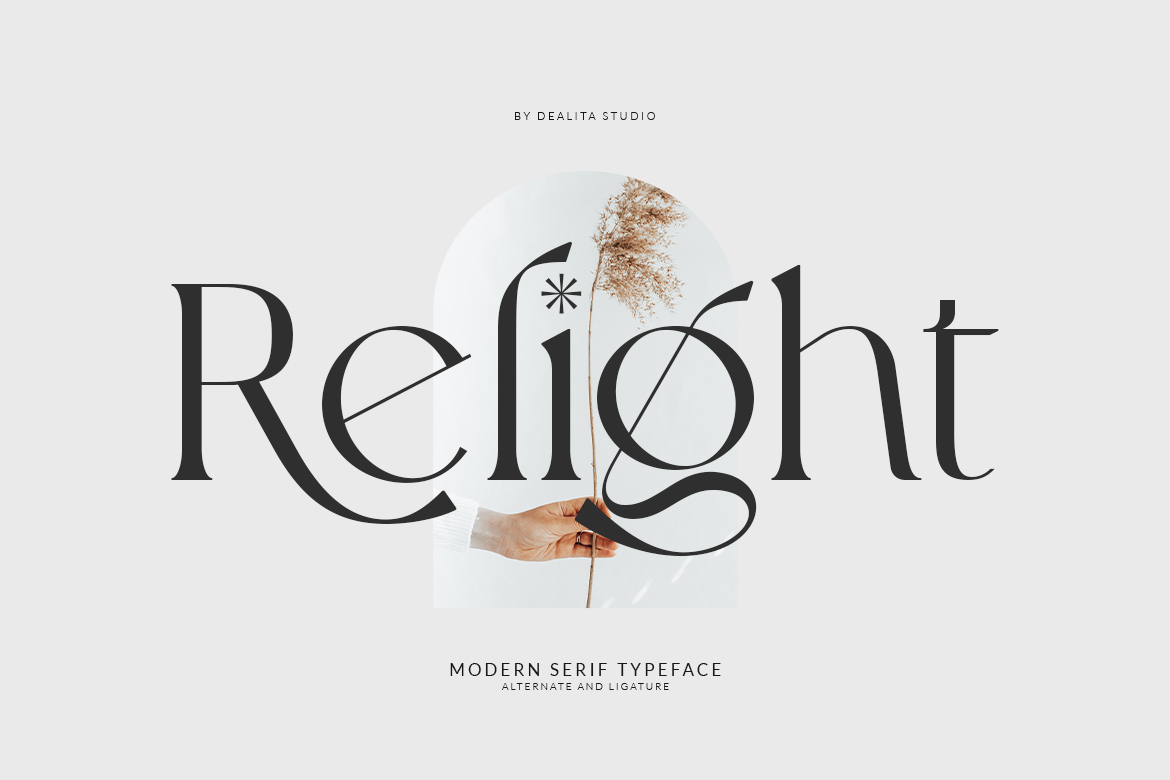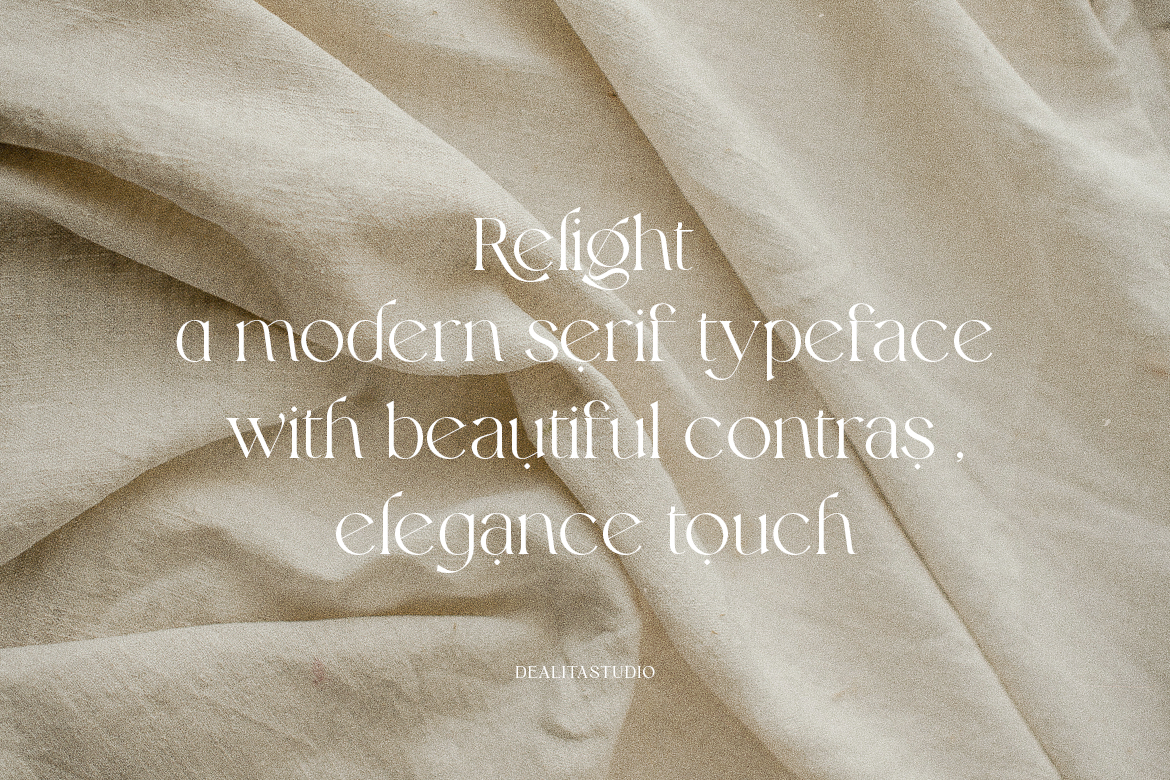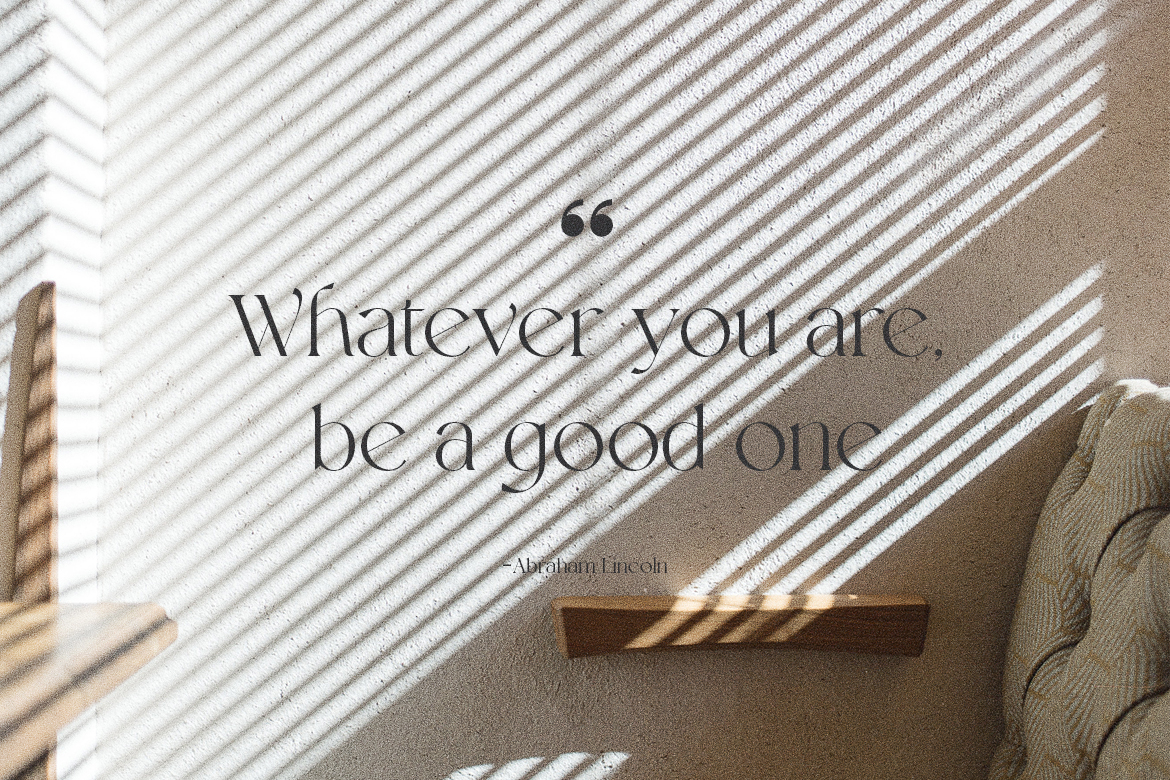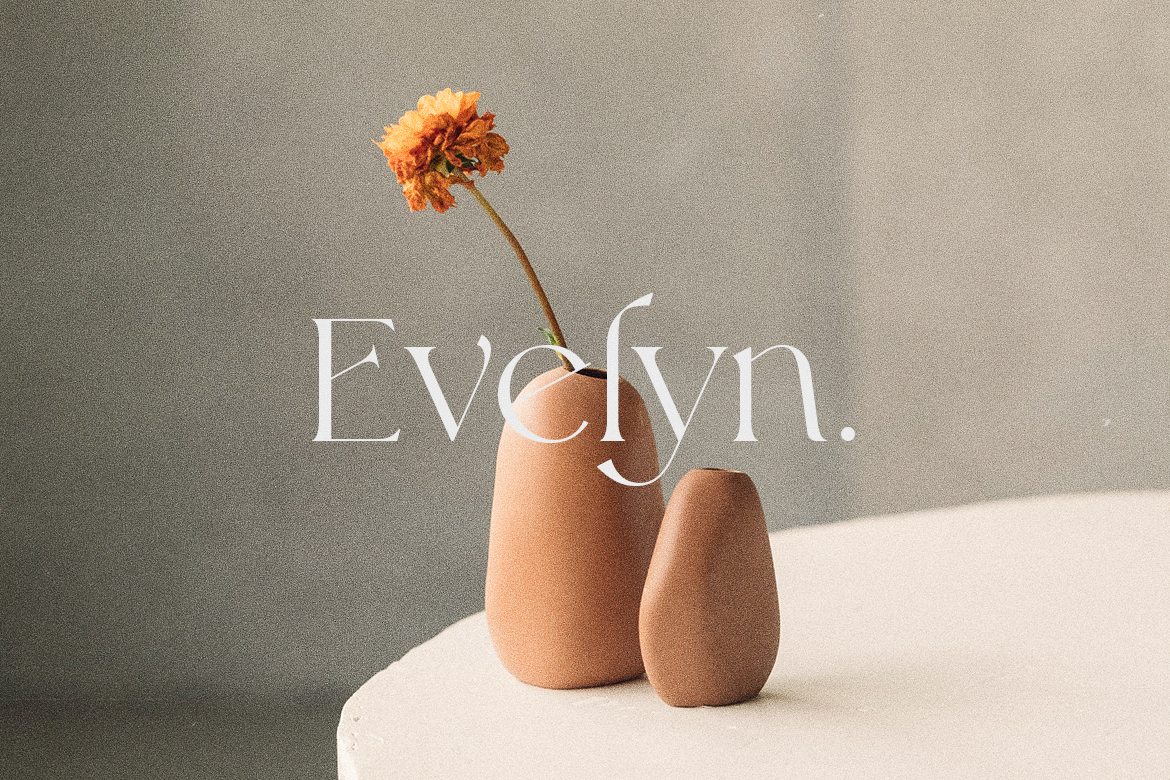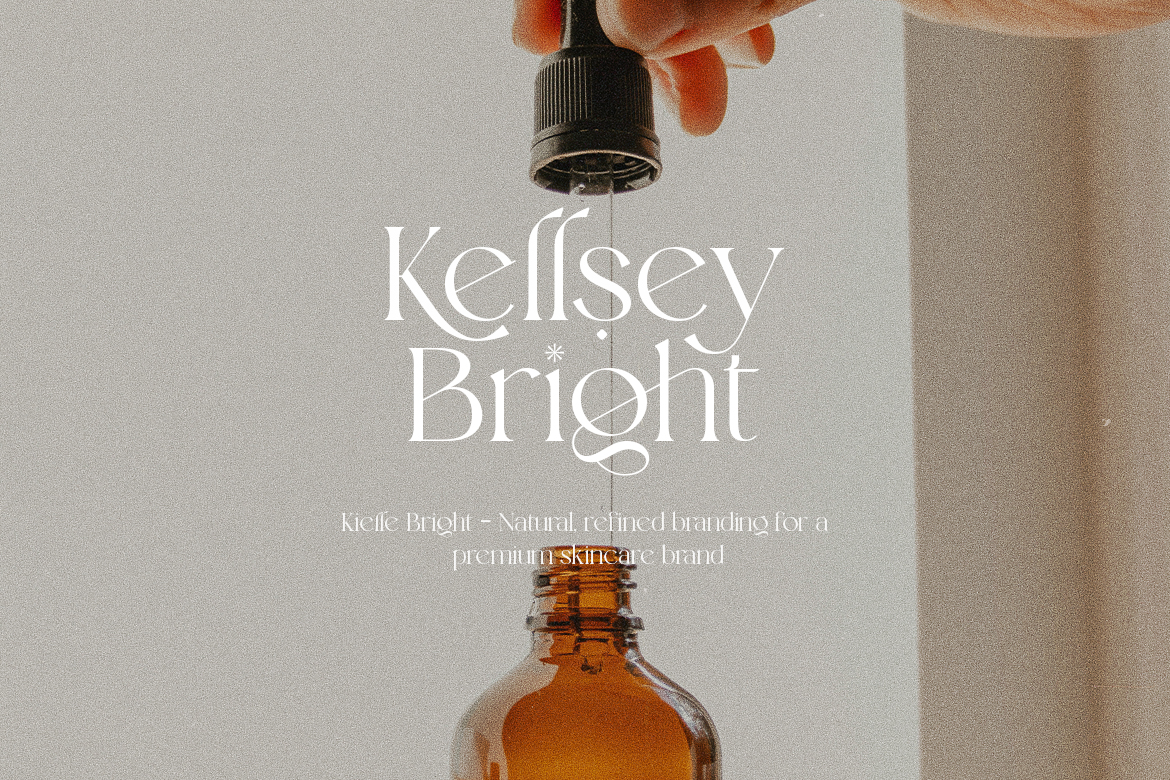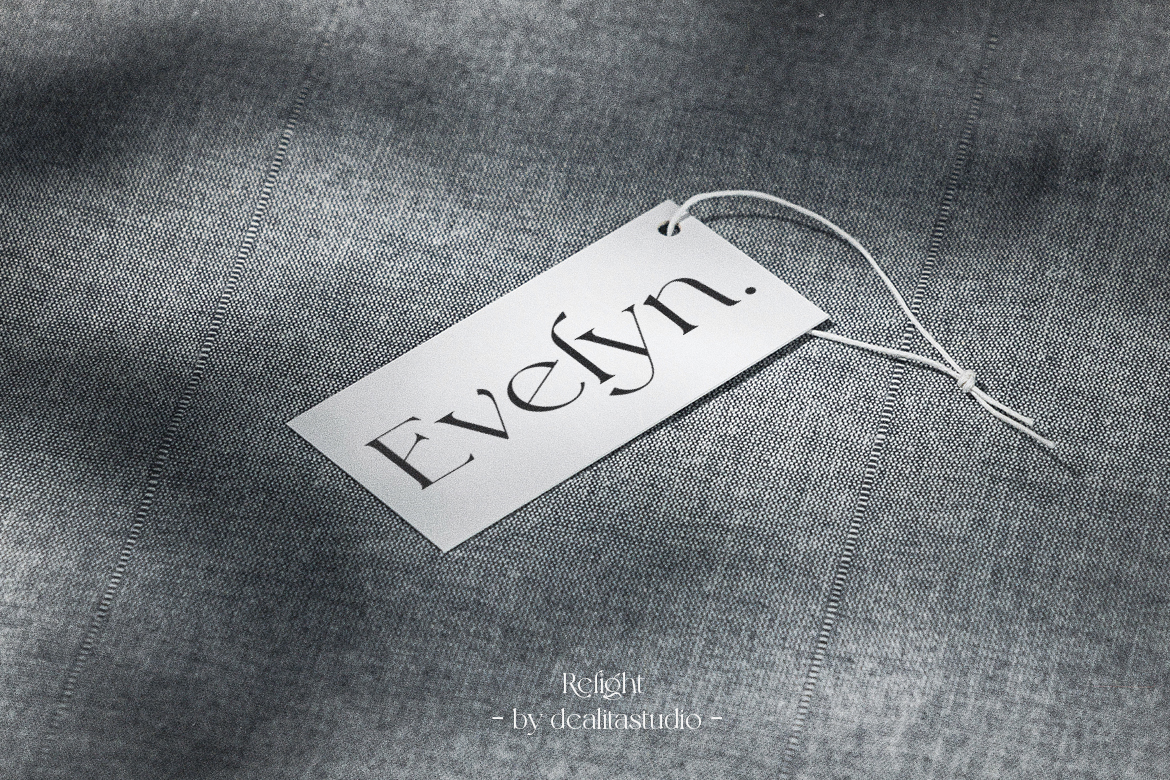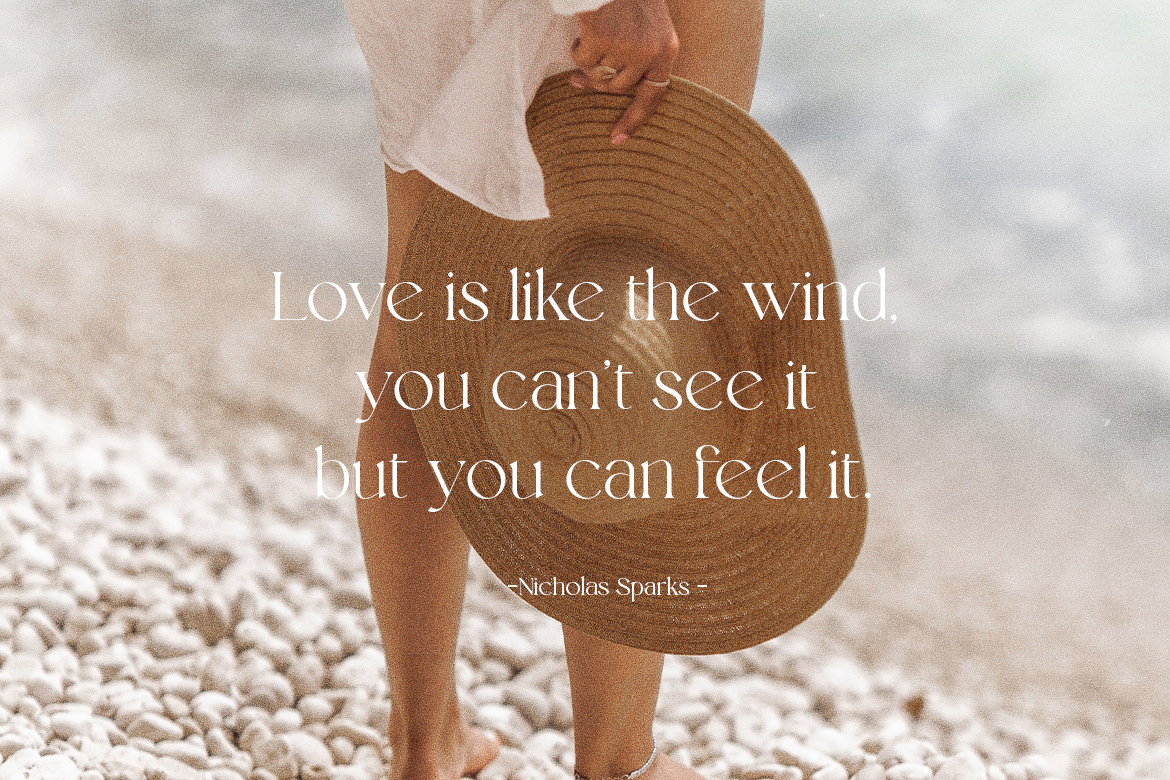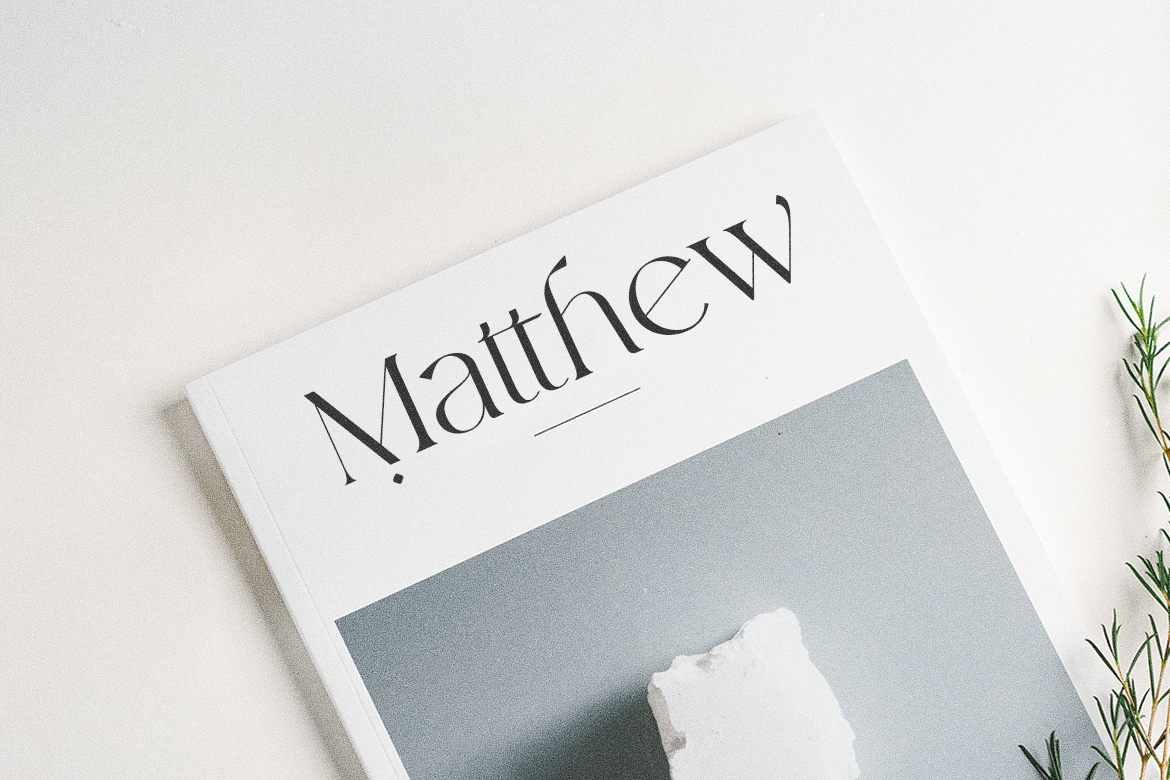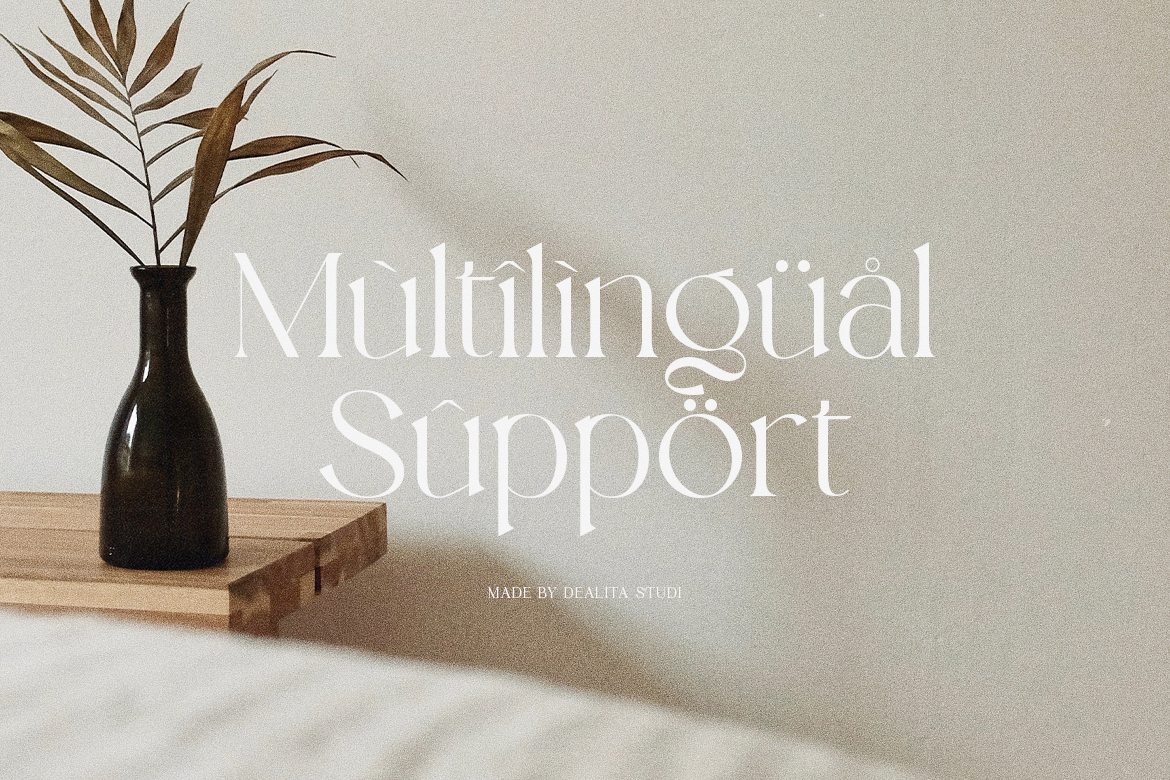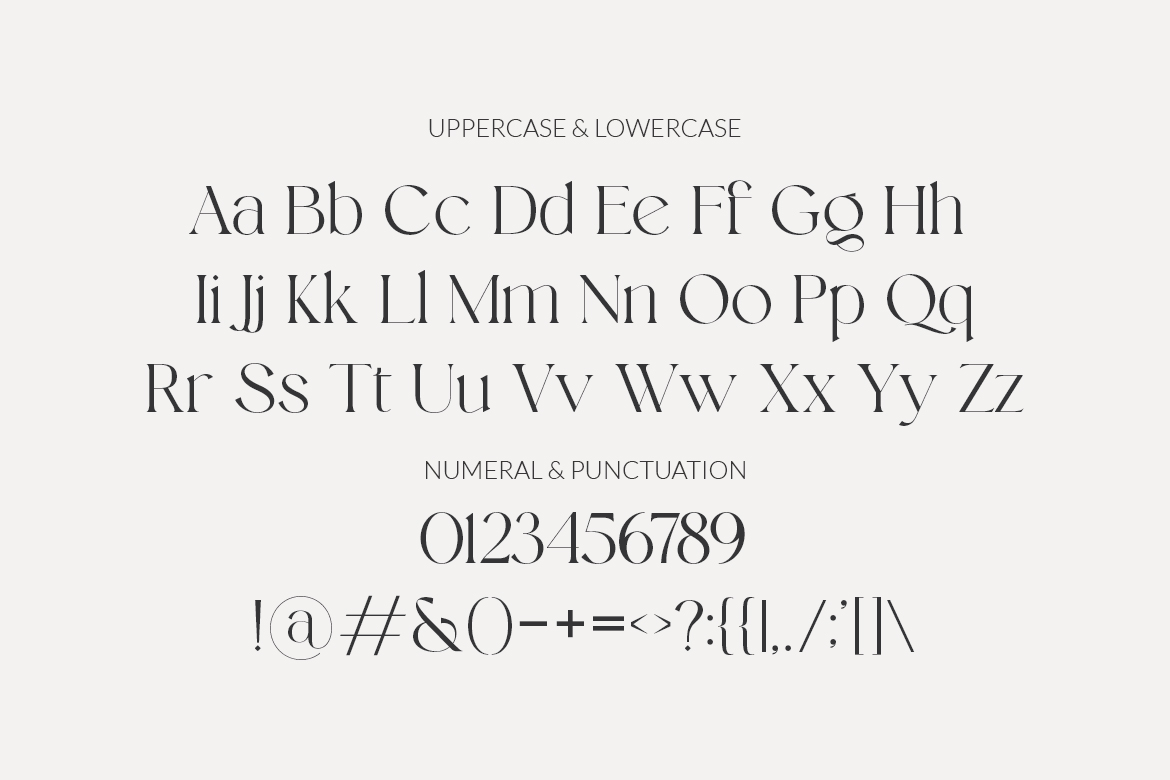
Relight | Minimalist Modern Serif Font for Branding
Description
Meet Relight, a minimalist modern serif font designed to bring a touch of timeless sophistication to your next creative project. Whether you’re building a refined brand from scratch or laying out a high-end magazine, Relight offers the perfect balance of classic charm and modern versatility.
Why you’ll love designing with Relight:
- Craft Bespoke Brand Identities: Perfect for premium logos and minimalist packaging that instantly demand attention and trust.
- Elevate Your Typography: Featuring 16 custom ligatures and 3 extensive stylistic sets, you can easily create flowing, unique wordmarks that feel exclusively hand-crafted for your clients.
- Design Without Borders: Comprehensive multilingual support ensures your message translates beautifully and resonates clearly across global audiences.
- Set the Perfect Mood: The refined, clean letterforms naturally lend themselves to boutique lifestyle branding, elegant product packaging, and sweeping editorial spreads.
Technical Specs Checklist
- Glyph Count: 273 Glyphs
- OpenType Features: 16 Ligatures & 3 Stylistic Sets (SS01, SS02, SS03)
- Language Support: Comprehensive Multilingual Coverage
With 273 meticulously crafted glyphs, Relight gives you the exact typographic tools needed to make your work shine. It’s more than just a typeface—it’s the secret ingredient for designs that feel effortlessly luxurious and totally unforgettable.